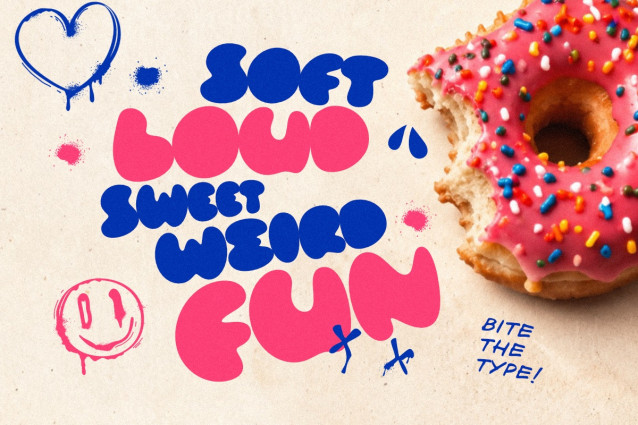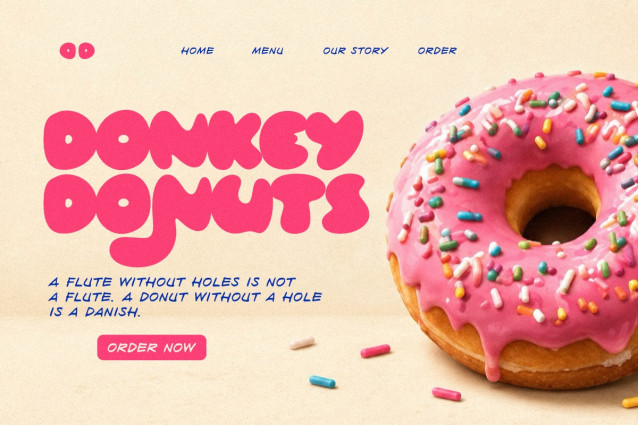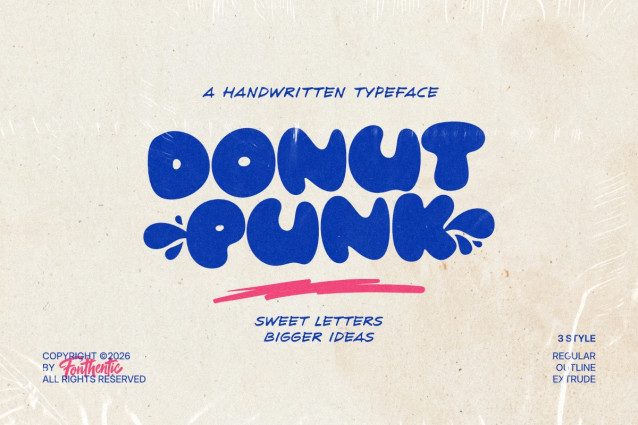
Donut Punk Font
Donut Punk turns thick, rounded letters into a playful bubble display font with a lively, hand-drawn rhythm. Its soft, uneven shapes give short words a big presence. Uppercase and lowercase share the same letterforms at different heights, while stylistic alternates and splash ligatures let you change a word’s look or add a burst at its edges.
Made for designs that can have a little fun, Donut Punk brings character to bakery branding, food packaging, posters, merchandise, and social graphics.